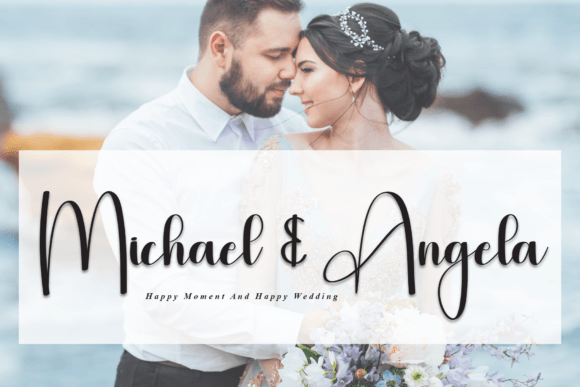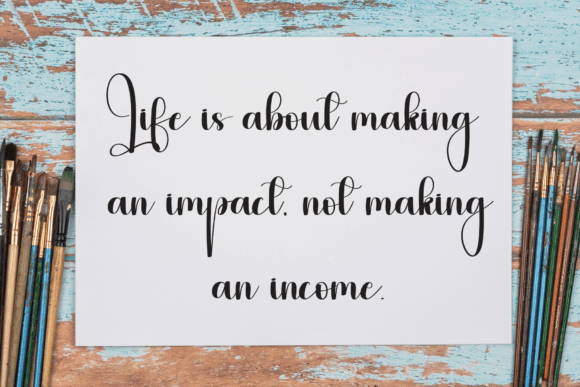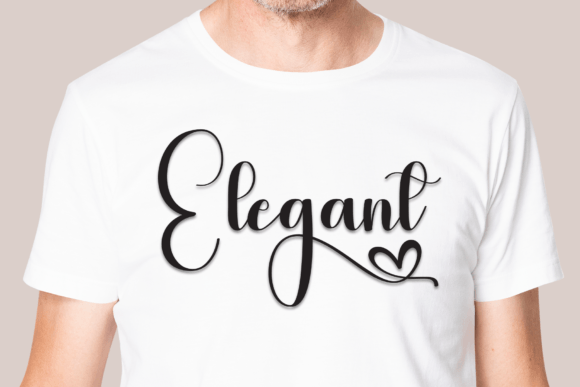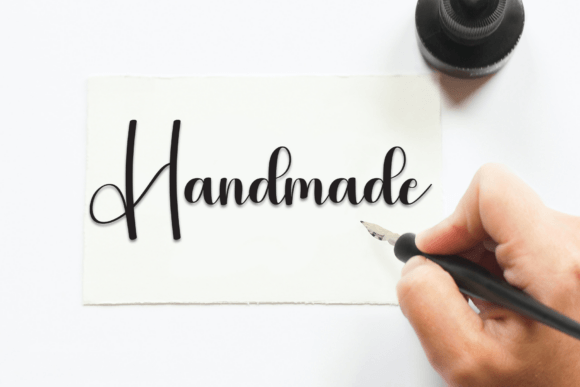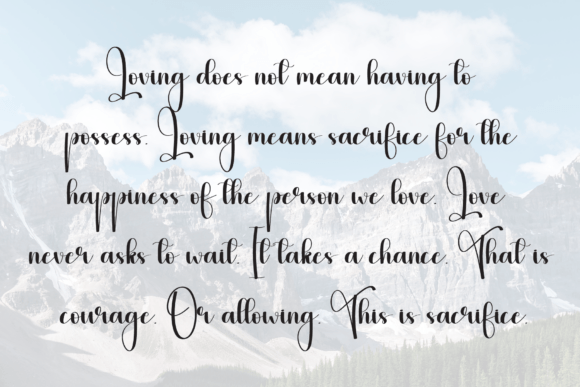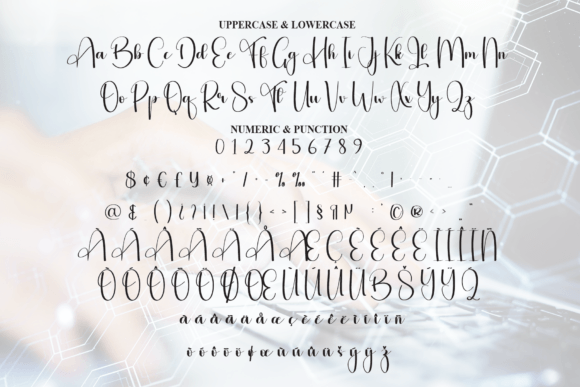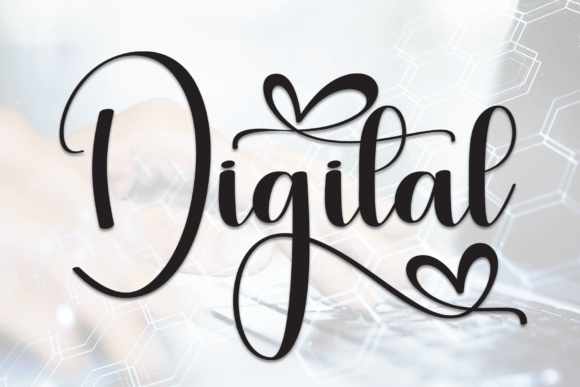
Discover the Enchanting World of Digital Fonts: A Spotlight on Whimsical Wishes
In the vast and wondrous world of digital design, fonts play a pivotal role in bringing creativity to life. Among the myriad of typefaces available, handwritten display fonts have a special place in the hearts of designers and crafters alike. They add a personal touch, a dash of personality, and a whole lot of charm to any project. Today, we’re thrilled to introduce you to “Whimsical Wishes,” a captivating handwritten display font that is sure to enchant your designs with its delightful sweetness and friendly demeanor.
The Allure of Whimsical Wishes
Whimsical Wishes is more than just a font; it’s an experience. With its light-hearted and playful strokes, it brings an element of fun to every project it’s a part of. This adorable font is perfectly tailored for wedding invitations, delightful cards, and any other creative endeavor that could use a sprinkle of whimsy. Whether you’re a professional designer or a crafting enthusiast, Whimsical Wishes is your perfect companion for adding that extra special something to your work.
Bringing Imagination to Life
The true magic of Whimsical Wishes lies in its ability to fuel your imagination. With this font, the possibilities are endless. Imagine crafting a wedding invitation that sets the tone for a fairytale-like celebration, or creating a card that brings a smile to the recipient’s face. Whimsical Wishes doesn’t just enhance your designs; it elevates them, adding a joyful touch that is sure to captivate your audience.
The Versatility of Digital Fonts
Digital fonts, like Whimsical Wishes, offer a world of versatility. They can be used across various platforms and projects, from digital marketing materials to personal crafts. This versatility makes them an invaluable resource for designers and crafters, who can rely on fonts like Whimsical Wishes to bring consistency and charm to their work.
Why Choose Whimsical Wishes?
So, what makes Whimsical Wishes stand out in the crowded world of digital fonts? Here are a few reasons why designers and crafters are falling in love with this charming font:
- Delightful Sweetness: Whimsical Wishes carries a sense of sweetness in its strokes, making it perfect for projects that require a touch of warmth and friendliness.
- Friendly Demeanor: The font’s friendly appearance makes it approachable and inviting, ideal for designs that aim to connect with the audience on a personal level.
- Light-Hearted Fun: With Whimsical Wishes, you can add a dash of fun to your projects, making them more engaging and enjoyable.
- Perfect for Creative Endeavors: Whether it’s wedding invitations, cards, or any other creative project, Whimsical Wishes is tailored to add that special something that makes your work stand out.
Tips for Using Whimsical Wishes in Your Designs
To make the most of Whimsical Wishes, here are a few tips:
- Pair it with Neutrals: Let Whimsical Wishes be the star of your design by pairing it with neutral backgrounds or complementary fonts.
- Experiment with Colors: Don’t be afraid to play with colors. Whimsical Wishes looks great in bright, pastel shades that enhance its playful and friendly vibe.
- Use it Sparingly: While Whimsical Wishes is charming, using it sparingly can make it more impactful. Consider using it for headings or key messages.
Whimsical Wishes is more than just a digital font; it’s a tool for creativity, a sprinkle of magic for your designs. With its delightful sweetness, friendly demeanor, and light-hearted fun, it brings a unique charm to any project. Whether you’re designing wedding invitations, crafting delightful cards, or working on any creative endeavor, Whimsical Wishes is your perfect companion. So, why wait? Immerse yourself in the charming allure of Whimsical Wishes and let your imagination soar to new heights.